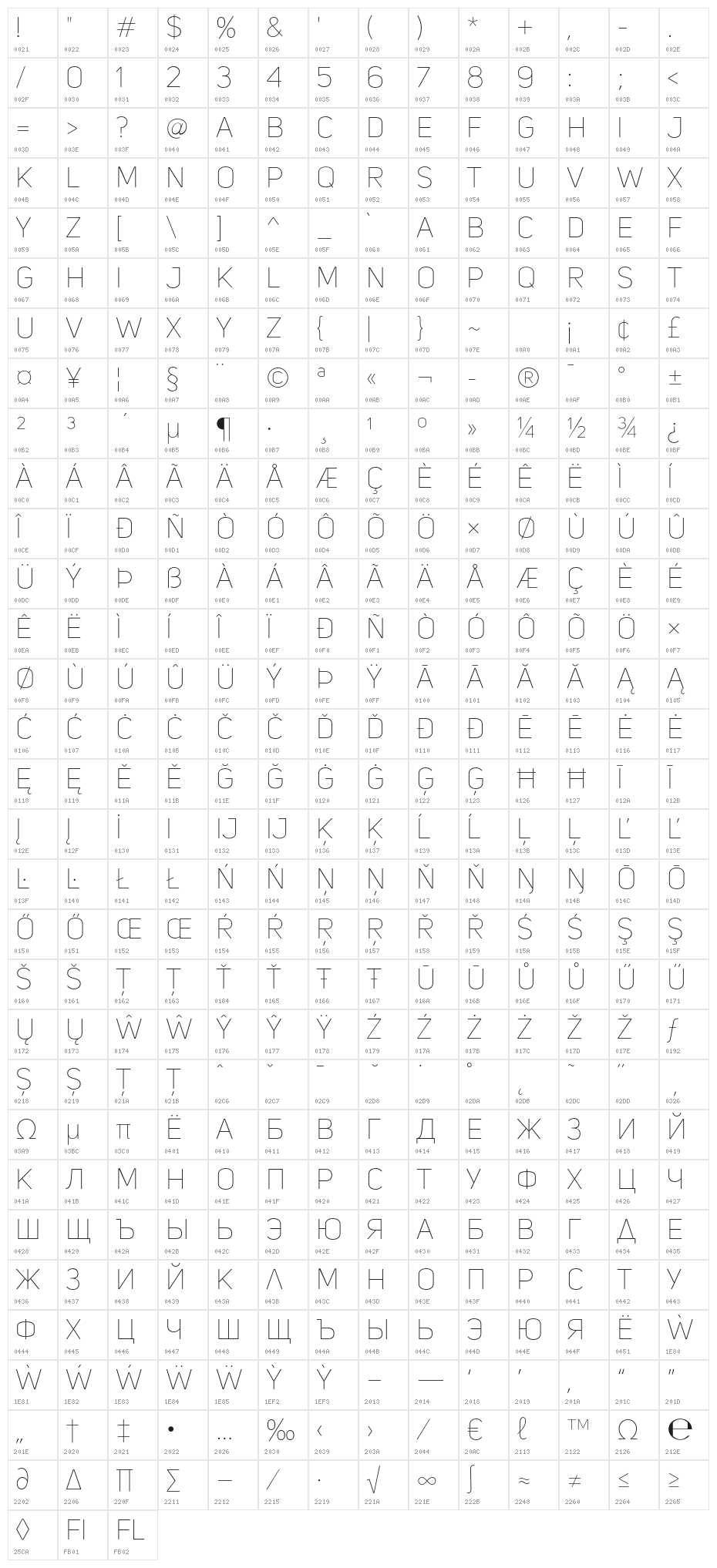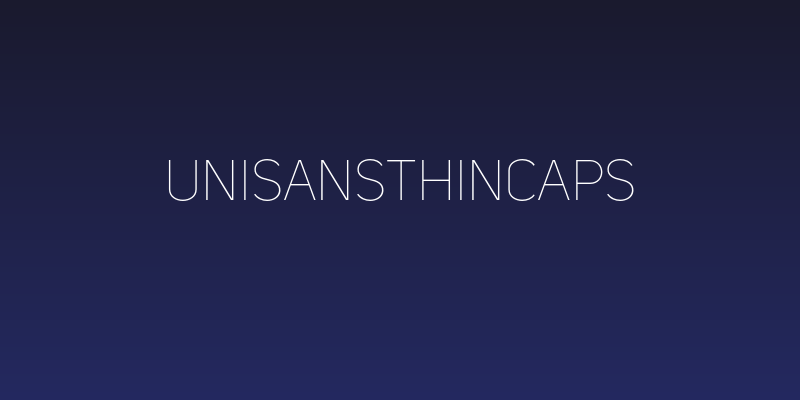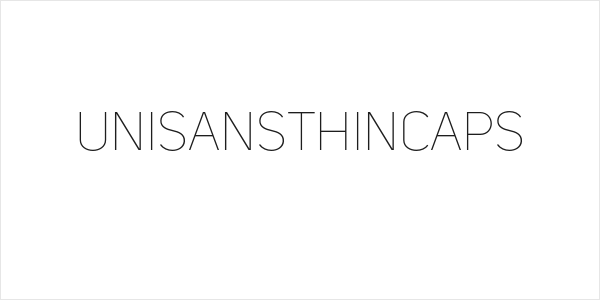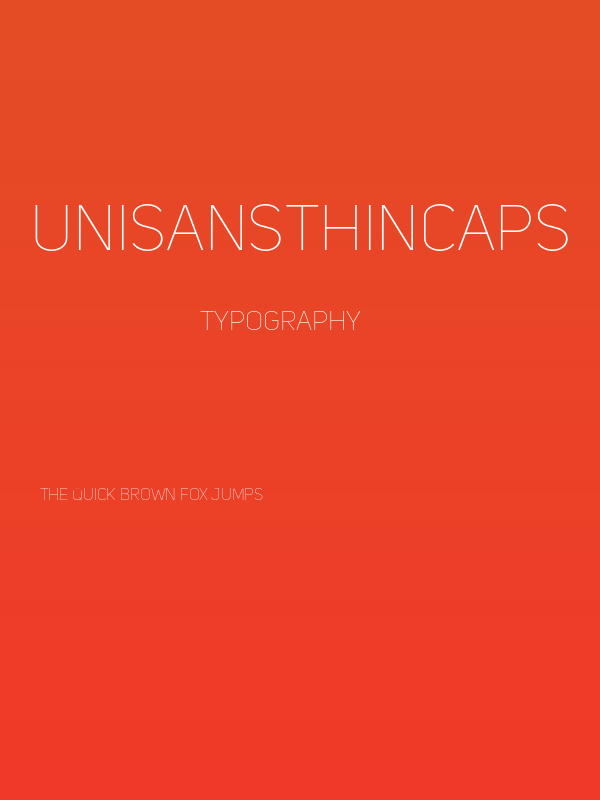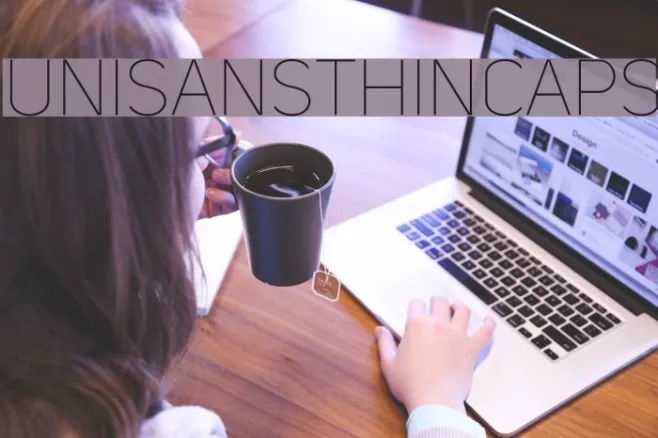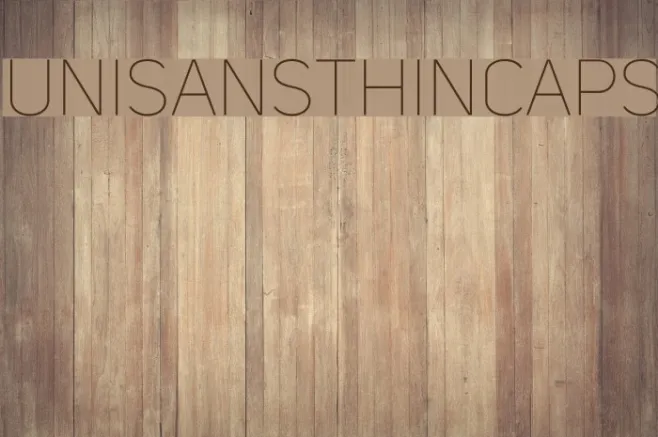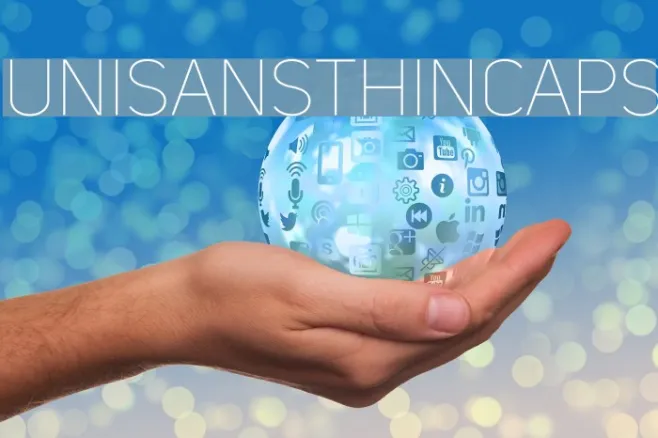
UniSansThinCAPS Font
UniSansThinCAPS Description
This font features a clean and modern sans-serif style with a thin and elegant appearance. The characters are uniformly designed with a consistent stroke width, giving it a sleek and minimalist look. The uppercase letters are tall and slightly narrow, while the lowercase letters maintain a similar proportion, ensuring readability and balance. The numerals are aligned with the height of the uppercase letters, providing a cohesive visual flow. Special characters are designed with the same thin strokes, maintaining the overall aesthetic. This font is ideal for projects that require a contemporary and sophisticated touch.
| Use Case | Headlines, Body text, Logos |
| Proposed Projects | Ideal for branding, editorial design, web design, and minimalist posters. |